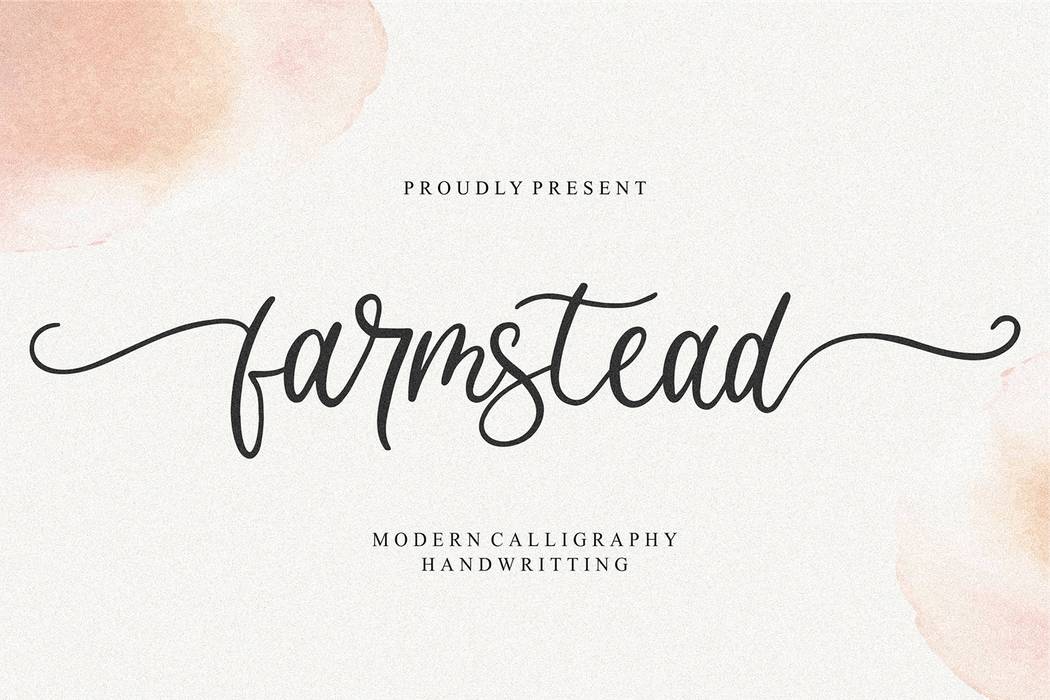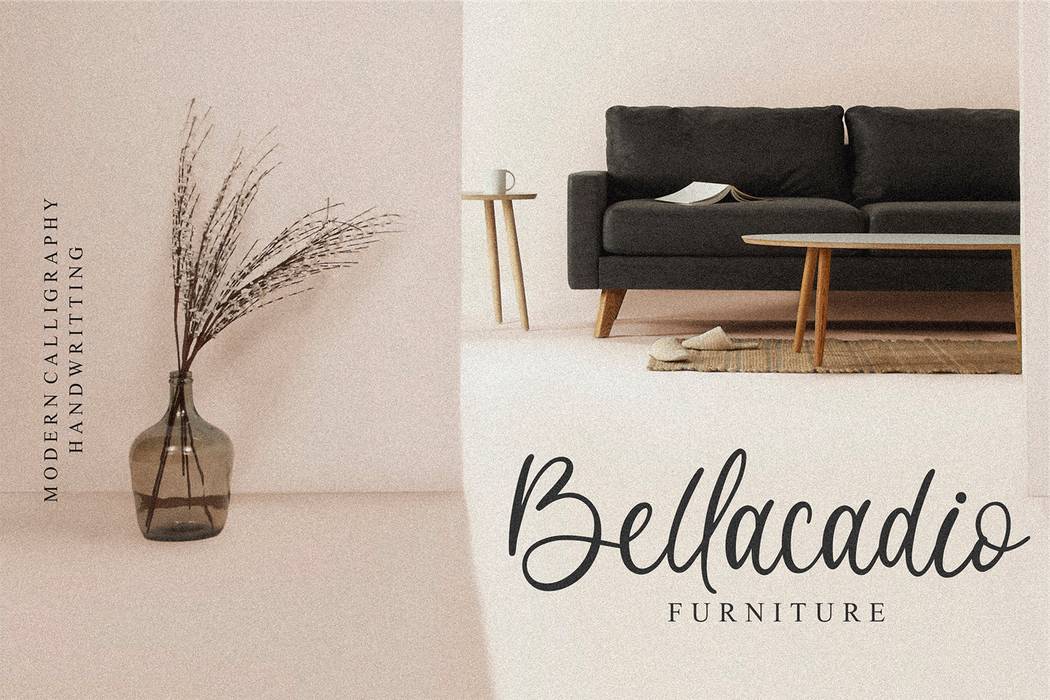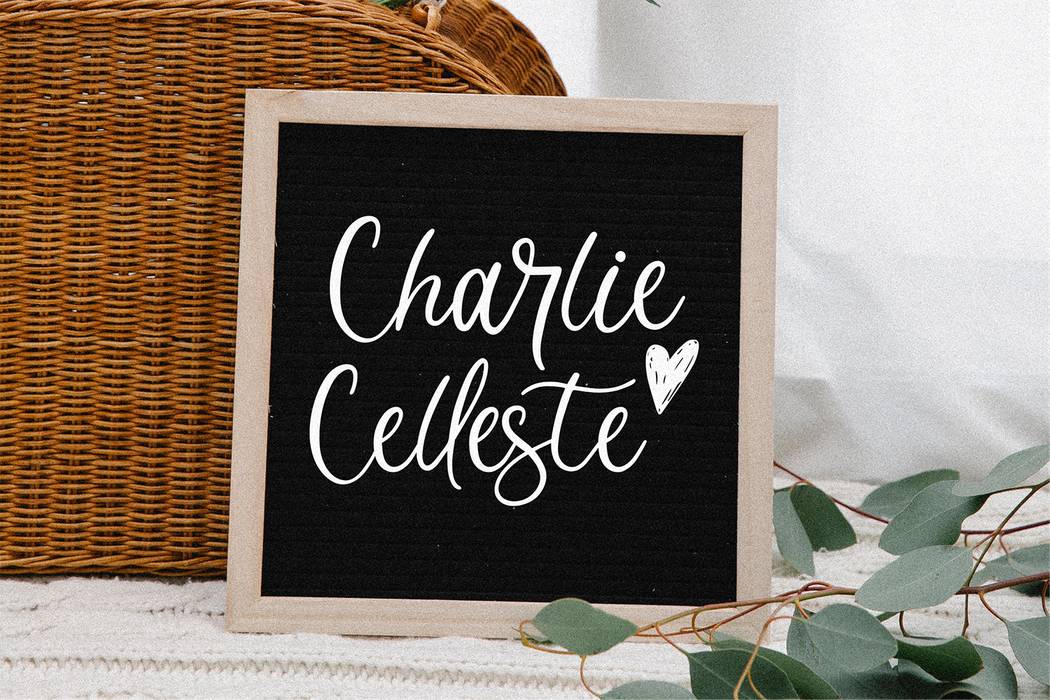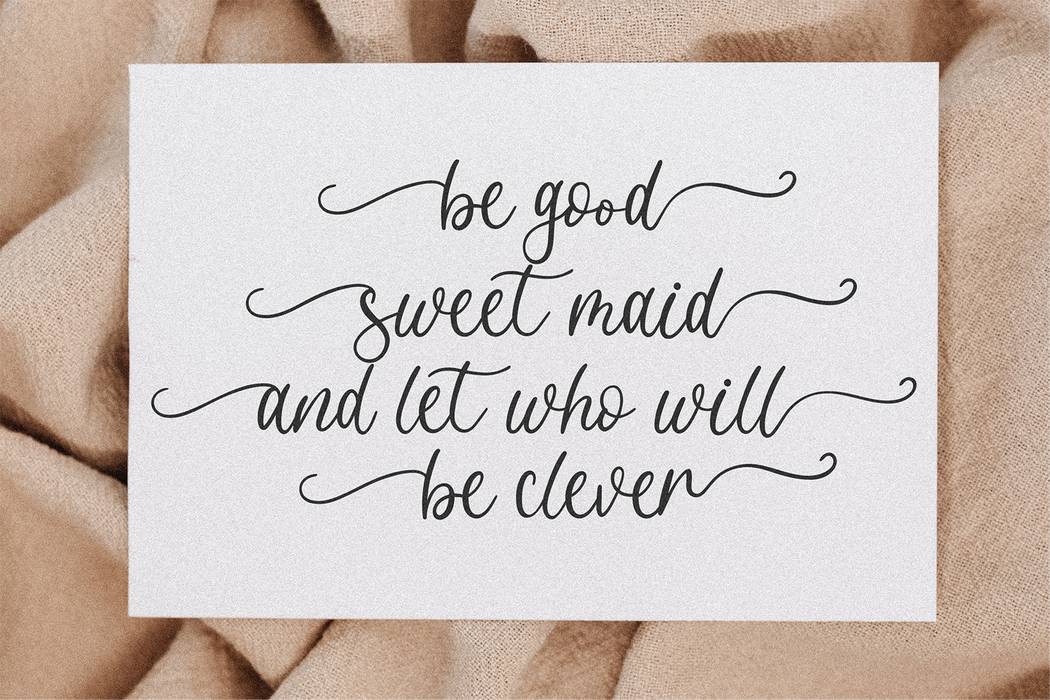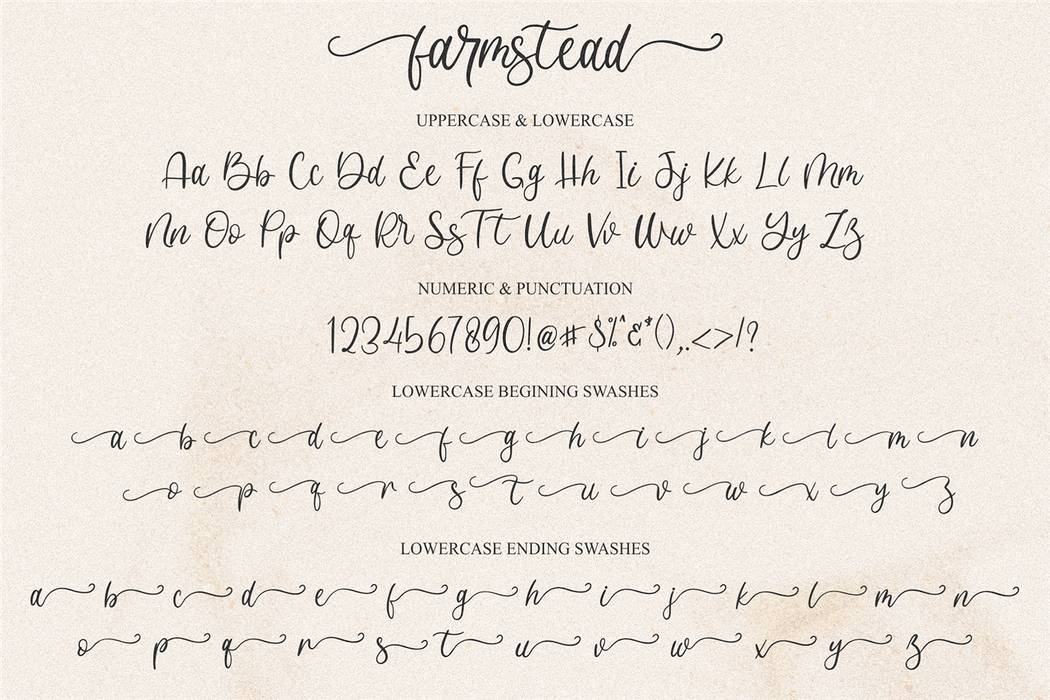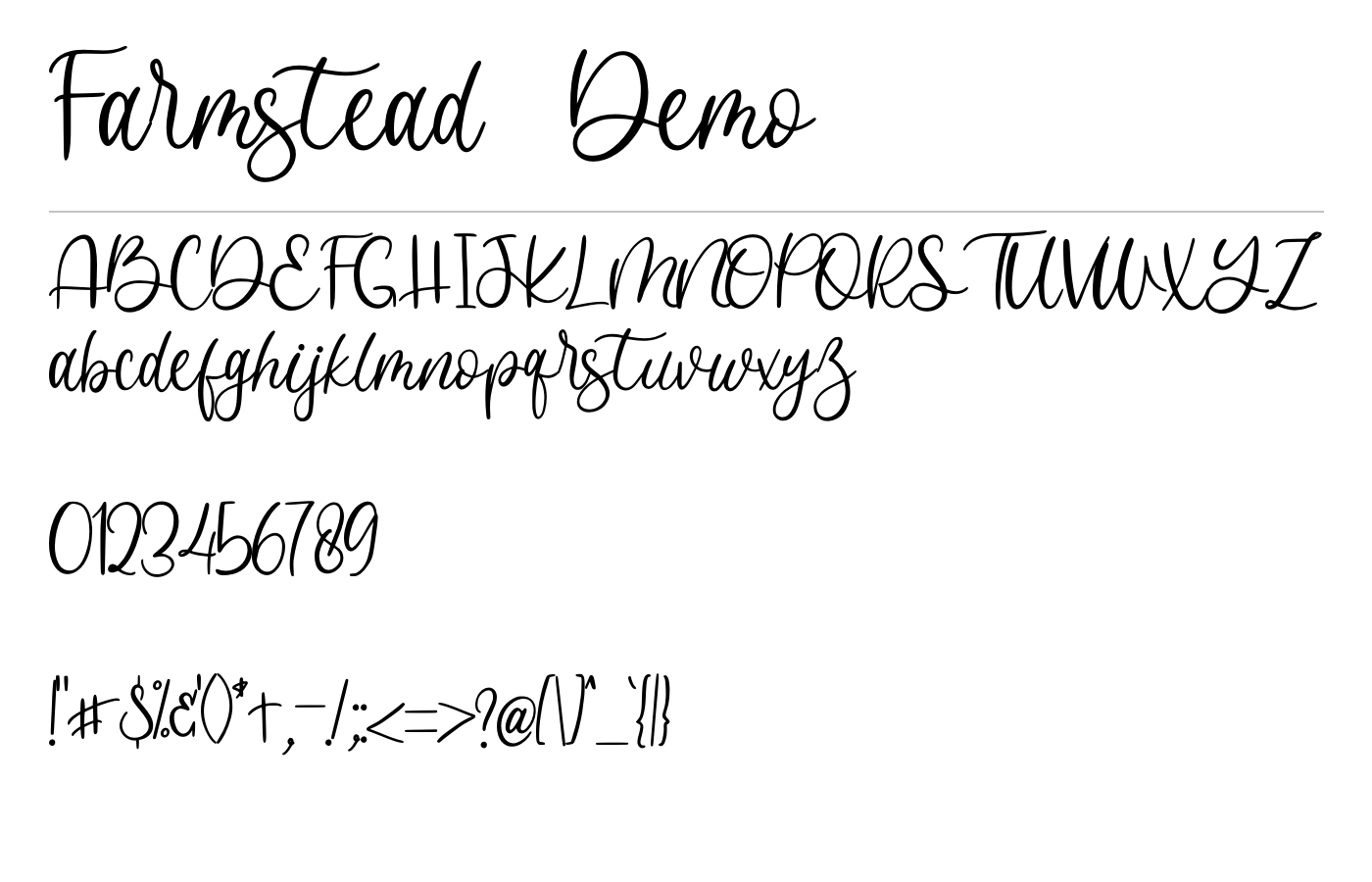
Farmstead is a delicate, handwritten script font with a light weight and narrow width, featuring elegant, flowing letterforms that evoke a friendly and personal touch. Its high x-height and unique character shapes, combined with consistent stroke thickness and smooth curves, make it ideal for invitations, branding, and stylish editorial use where a warm, approachable feel is desired. This font works best in settings that benefit from a charming yet refined handwritten look, adding a sense of creativity and natural elegance.
Farmstead Font
About Farmstead Font